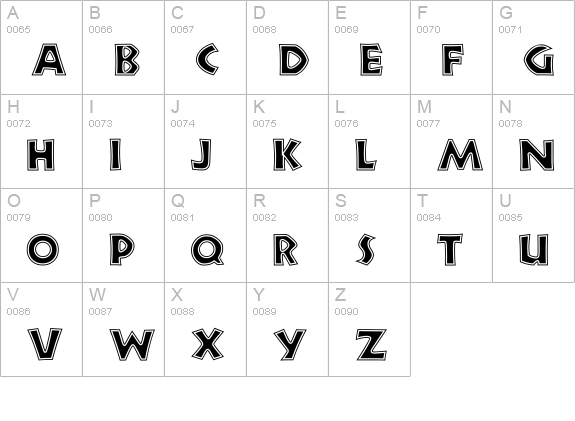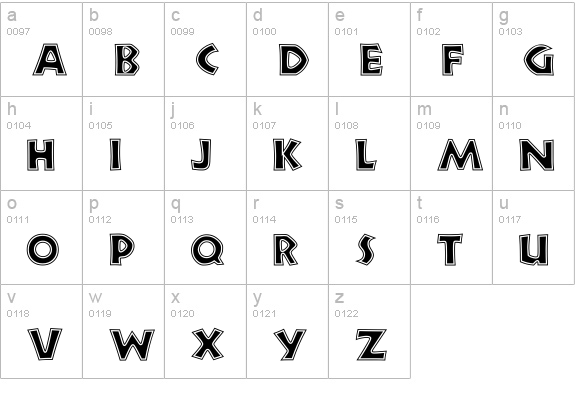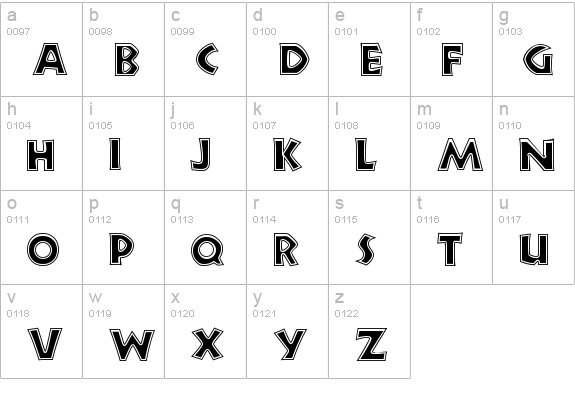
New Land Contour Font Details
Introducing New Land Contour font, a striking typeface that exudes elegance and sophistication. With its unique contours and stylish appearance, this font is perfect for adding a touch of modern flair to any design project. The intricate details of each letter create a beautiful visual impact, making it a versatile choice for branding, logos, posters, and more. What sets New Land Contour font apart is not only its captivating design but also the fact that it is available for free download at FontsMarket.com. Yes, you read that right – this exquisite font can be yours at no cost, giving you the opportunity to elevate your creative projects without breaking the bank. Whether you're a seasoned designer looking to refresh your font collection or a newcomer eager to experiment with different styles, New Land Contour font is a must-have addition. Embrace the beauty of typography and make a statement with this stunning typeface that is sure to leave a lasting impression. Download it today and let your creativity soar!